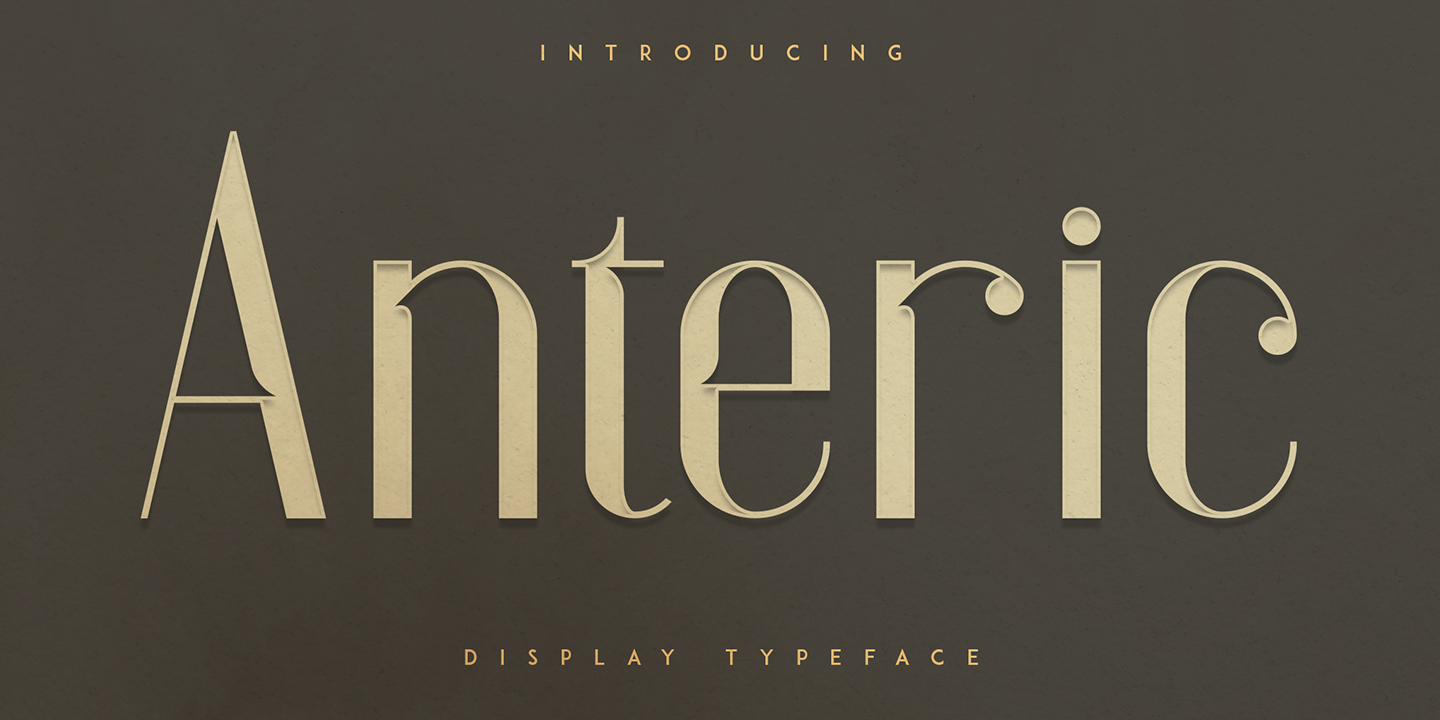
Anteric Font is perfect for contemporary branding, modern corporate communications, sophisticated signage, professional publications, clean advertising campaigns, architectural projects, tech company materials, and refined display typography.
What makes Anteric Font exciting is its contemporary professional character that embodies modern sophistication and corporate reliability through clean letterforms and professional appeal. This refined typeface features contemporary construction, professional details, and sophisticated personality that captures the essence of modern business excellence and corporate credibility, making it ideal for projects seeking to communicate professionalism, reliability, and contemporary sophistication with authentic modern appeal and corporate refinement.
The Anteric Font family includes Thin, Light, Regular, Medium, Bold, and Black weights, each available in upright and italic variations, providing comprehensive professional solutions while preserving the characteristic contemporary elegance and corporate sophistication.